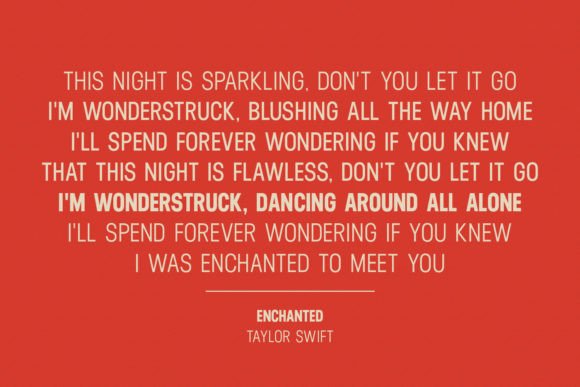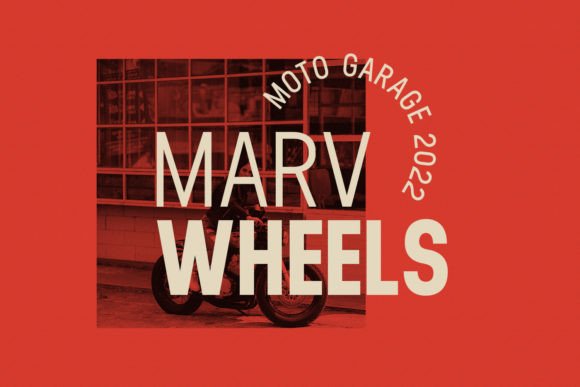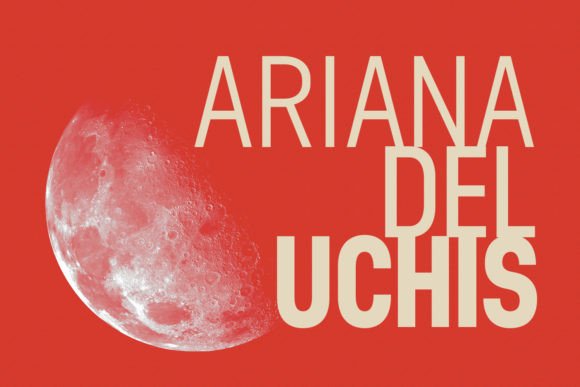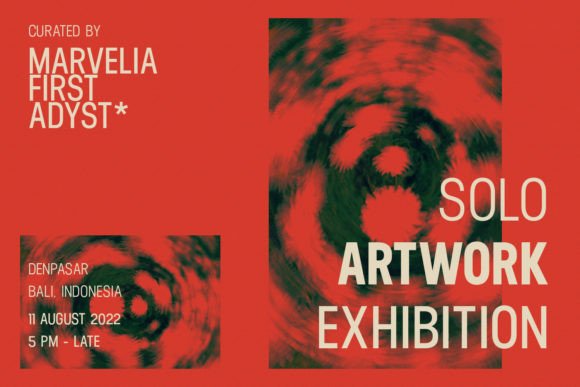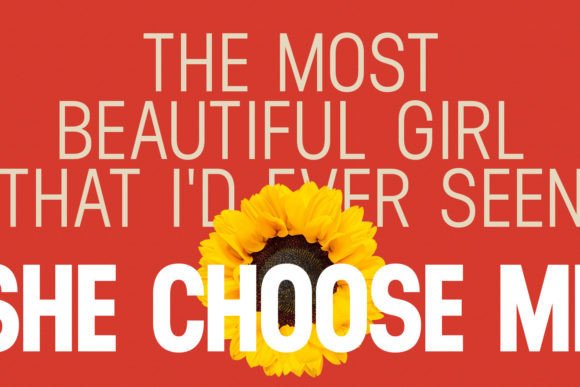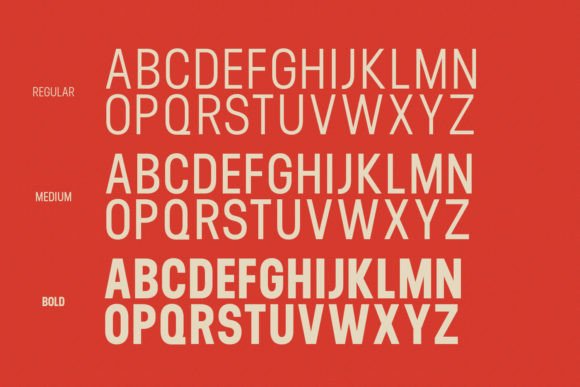
Introduction to Orecla Font
Have you ever stared at a blank canvas, eager to bring a creative project to life, only to be held back by the perfect font? It’s a frustrating feeling, especially when you know that the right typography can make all the difference. For designers like you, finding the perfect font can be a game-changer.
Enter Orecla Font, a sleek and modern sans serif font that’s poised to revolutionize your design game. With its clean, organized character and high-quality aesthetic, Orecla Font is the perfect addition to any creative project. Whether you’re working on a logo, brochure, or website, this versatile font is sure to impress. And the best part? Orecla Font is available for free download, making it an invaluable design resource for designers of all levels.
Key Features of Orecla Font
• High-quality typography with a unique, creative touch, perfect for various design projects.
• Comes with a transparent background, allowing for easy customization and versatility in design applications.
• Supports a wide range of languages, making it an ideal choice for global design projects.
Honest Review: Orecla Font
As a designer, I’m always on the lookout for high-quality fonts that can elevate my creative projects. Recently, I stumbled upon the Orecla Font, and I must say, it’s been a game-changer. The font is free to download, which is a huge plus, and it’s available in various formats, making it easy to integrate into any design resource.
What works well about the Orecla Font is its clean and modern design. The transparent background makes it easy to customize and layer with other design elements. The font is highly legible, even at smaller sizes, making it perfect for body text or titles in a creative project. The font’s versatility is another major advantage – it can be used for a wide range of projects, from logos to print materials.
• High-quality, clean design
• Transparent background for easy customization
• Perfect for creative projects, logos, and print materials
My only gripe with the Orecla Font is that it may not be suitable for more traditional or formal designs. However, for a creative project or a modern design, it’s a great choice. Overall, I’m thoroughly impressed with the Orecla Font, and I’d highly recommend it to fellow designers.
Getting the Most Out of Orecla Font
To get the most out of Orecla Font, use it with a transparent background to create visually appealing designs. This font is ideal for creative projects that require a modern and sleek look.
Orecla Font is commonly used in logo design, branding, and marketing materials. Its high-quality design and transparent background make it an excellent choice for creating visually appealing and professional-looking designs.
Can I use the Orecla Font on a transparent background?
Yes, the Orecla Font supports transparent backgrounds. Since it’s a high-quality font with a transparent background, you can use it on any background image or color without worrying about the font’s color clashing with the background. This makes it an ideal choice for designers who want to create visually appealing and creative projects.